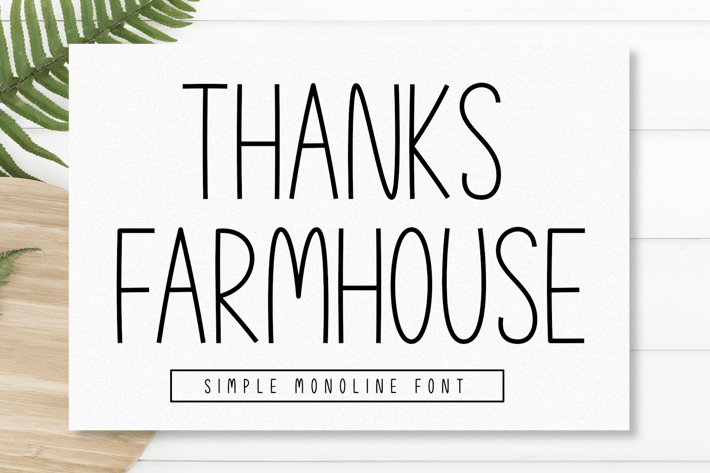
Thanks Farmhouse - Monoline Font
Thanks Farmhouse is a rustic and stylish sans serif monoline display font inspired by handmade farm signage and cozy countryside aesthetics. Its soft curves and consistent strokes make it perfect for branding, food packaging, home décor, and signage design.
Designed to bring warmth and friendliness to your visual storytelling.
Key Features:
- Rustic monoline display style
- Perfect for signage and labels
- Cozy and handcrafted vibe
- Balanced and versatile appearance
Give your designs a down-to-earth charm with Thanks Farmhouse.